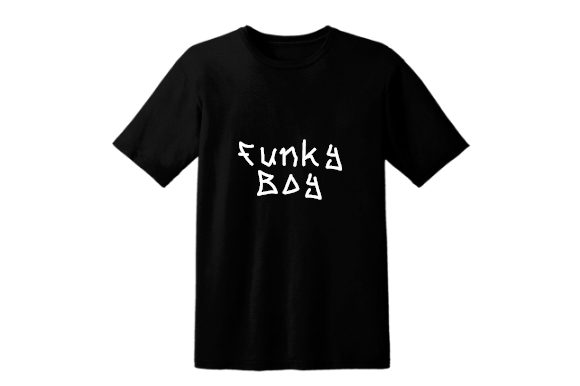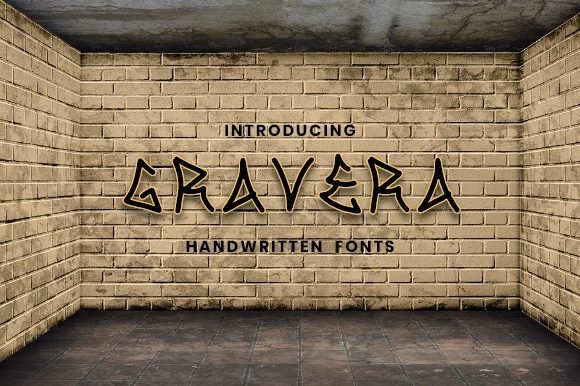
Introduction to Gravera Font
Gravera is an outstanding handwritten font, the right choice for all the projects that you wish to highlight.
Distinct and sophisticated, Gravera will look particularly adept when used in logos, branding, packaging design, and much more .